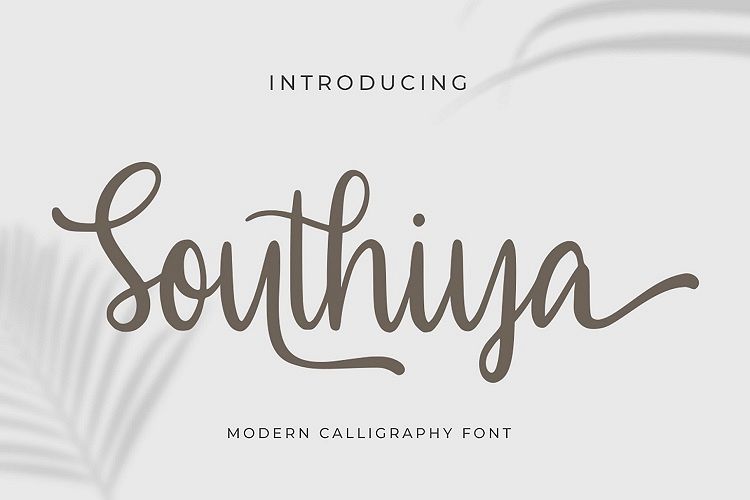
Southiya - Modern Calligraphy Font
Introducing Southiya - Modern Calligraphy Font
Southiya is an equally elegant and authentic script, full of love. Use it to add a romantic spark to any design project!
This Font Template contains Modern, Elegant, creative, Professional and Unique Concept.